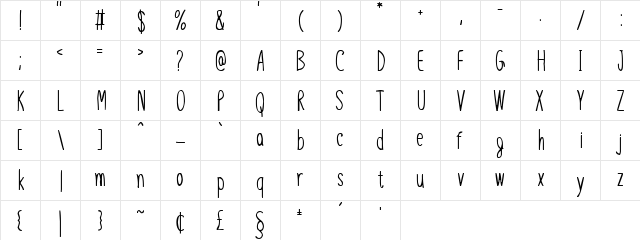
Our Goal Regular
Design Context for Our Goal Typeface
Our Goal offers clean, dependable letterforms without strong stylistic allegiance, making it a practical choice for designers who need flexibility.